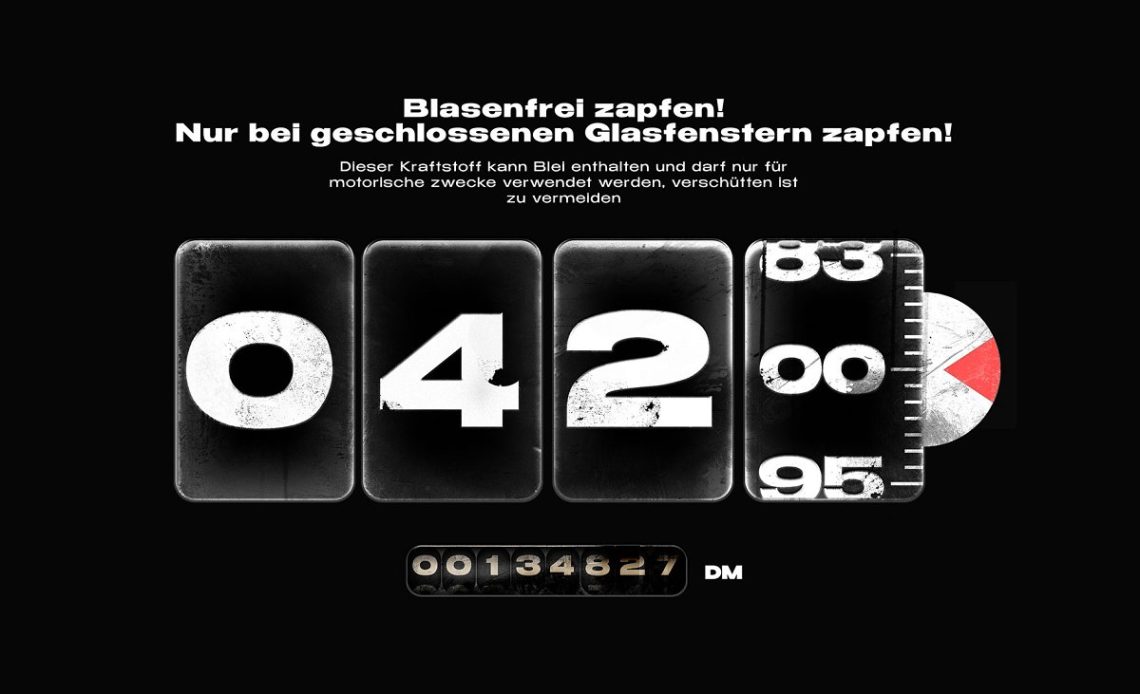
Looking for the perfect font that will make your hashtags stand out on social media? Look no further than Benzin! Created by the talented Roman Postovoy, this geometric sans serif font family is the ideal choice for anyone looking for a bold and eye-catching font.
With five different weights to choose from, you can easily find the perfect style to suit your needs. And thanks to the customized kerning for both bold and thin styles, Benzin is incredibly versatile and can be used for everything from large headlines to small paragraphs.
One of the best things about Benzin is that it is a universal font that can be used for a wide range of projects. Whether you're designing posters, creating social media graphics, or working on a branding project, Benzin is the perfect choice.
Plus, with support for a wide range of languages including Western and Central/Eastern Europe, Baltic, Turkish, Romanian, and Cyrillic, Benzin is a truly global font that can be used by designers all around the world.